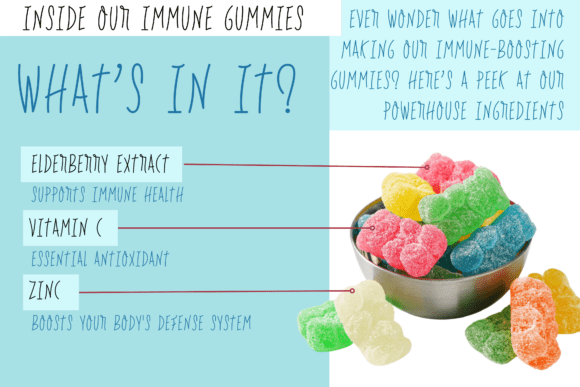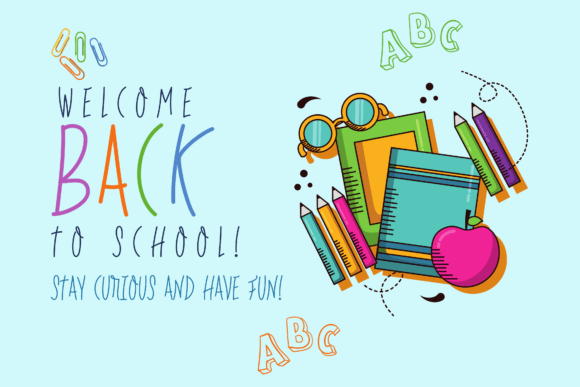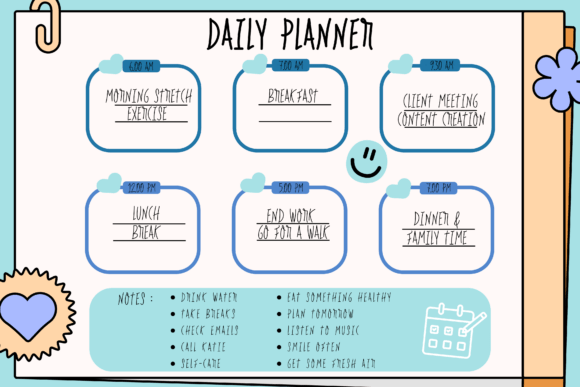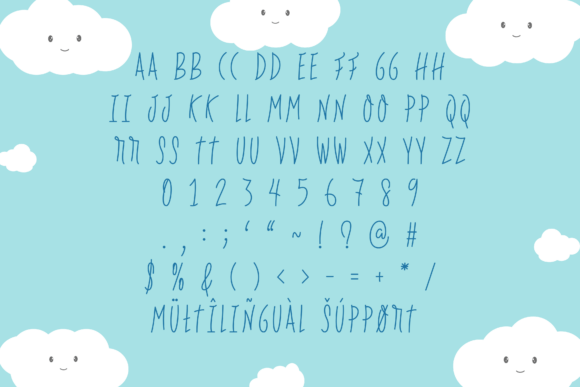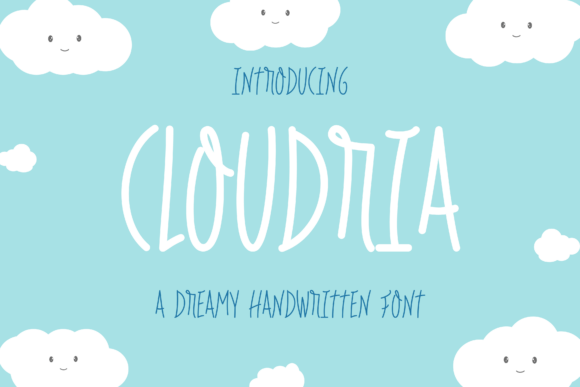
Introducing Cloudria Font: The Ultimate Handwritten Companion for Designers and Crafters
Are you on the hunt for a font that adds a dash of personality and charm to your designs? Look no further than Cloudria, a dreamy handwritten font that’s perfect for bringing warmth and fun to any project. Whether you’re creating content for kids, planning pages in Goodnotes, or sharing on social media, Cloudria is the ideal choice for designers and crafters looking to make their mark.
The Charm of Cloudria
Cloudria boasts a casual, friendly vibe that makes it an excellent fit for a wide range of applications, from branding and children’s products to invitations, DIY projects, and more. Its unique, handwritten style is sure to capture the hearts of your audience, adding a touch of whimsy and playfulness to your designs.
Key Features of Cloudria Font
- All-caps characters: Make a statement with Cloudria’s bold, all-caps characters that are perfect for headings, titles, and emphasis.
- Numbers and essential punctuation: Cloudria has got you covered with a comprehensive set of numbers and punctuation marks, ensuring you have everything you need to create engaging content.
- Multilingual support: Reach a broader audience with Cloudria’s multilingual support, making it easy to connect with readers from diverse backgrounds.
Cloudria is more than just a font – it’s a creative companion that can help bring your ideas to life. Here are some ways designers and crafters can make the most of Cloudria:
Kids’ Content and Children’s Products
Cloudria’s playful, friendly vibe makes it an excellent choice for creating content for kids. Use it to design engaging storybooks, activity sheets, or educational materials that are both fun and informative. For children’s products, Cloudria can add a touch of personality to product labels, packaging, and marketing materials.
Planning Pages and Goodnotes
Take your planning pages to the next level with Cloudria’s whimsical style. Add a personal touch to your Goodnotes layouts, making them more visually appealing and fun to use.
Social Media and Branding
Cloudria’s casual, friendly vibe makes it perfect for social media content, helping you connect with your audience on a more personal level. Use it to create engaging posts, stories, and captions that reflect your brand’s personality.
Invitations and DIY Projects
Add a touch of warmth and personality to your invitations, DIY projects, and crafts with Cloudria. Its handwritten style makes it perfect for creating unique, handmade items that stand out from the crowd.
Cloudria is a versatile, dreamy handwritten font that’s perfect for designers and crafters looking to add a touch of personality and charm to their projects. With its casual, friendly vibe and comprehensive feature set, Cloudria is an excellent choice for a wide range of applications, from kids’ content and planning pages to social media and branding. Download Cloudria today and discover the creative possibilities!